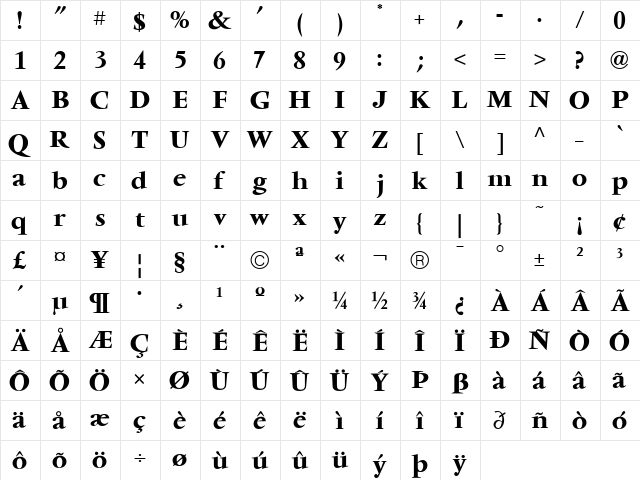
VendomeICG Bold
Design Context for VendomeICG Typeface
VendomeICG takes a measured approach to typography — its balanced proportions and neutral character make it a reliable workhorse for both digital and print work. Its bold stroke weight gives it real presence on the page.
Pro Tip: Pair VendomeICG with a font of contrasting weight or personality to build a more expressive typographic hierarchy.